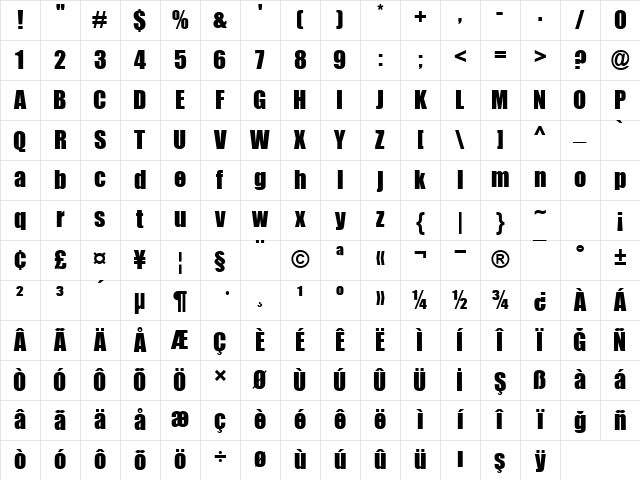
TR Impact Regular Free Font
TR Impact Regular
Design Context for TR Impact
TR Impact brings high-energy athletic personality to the page - its confident, muscular forms are built for impact.
Pro Tip: Use TR Impact in all-caps headlines where its athletic energy can fully express itself. Pair with a solid, simple sans for supporting text.